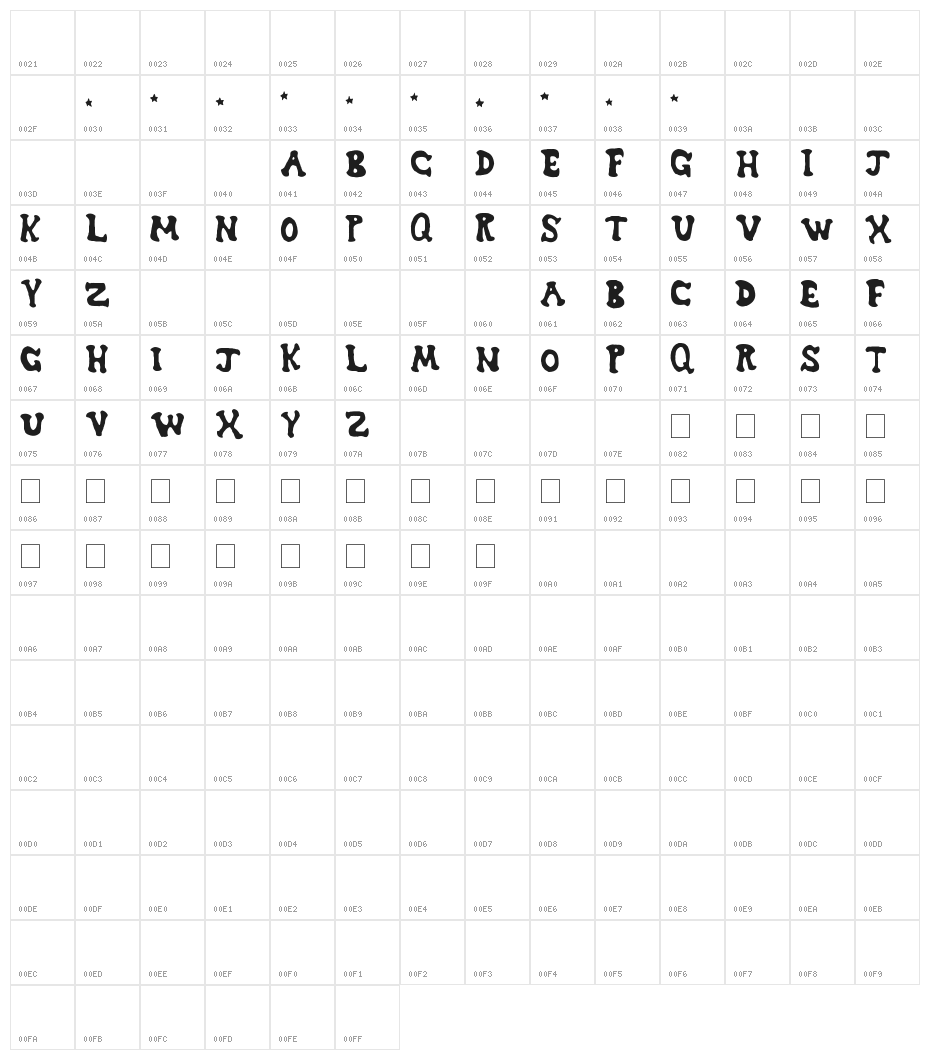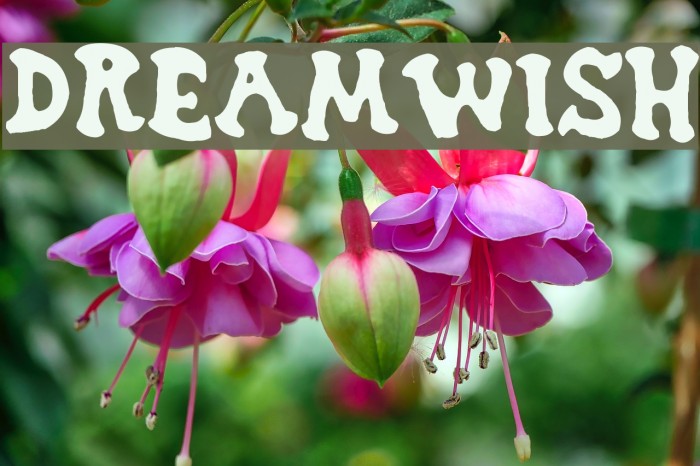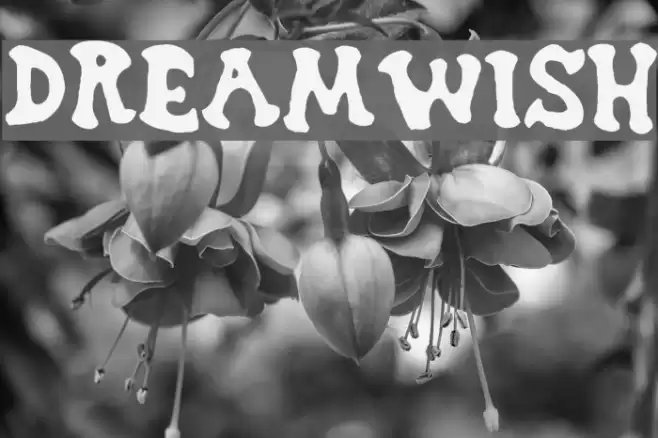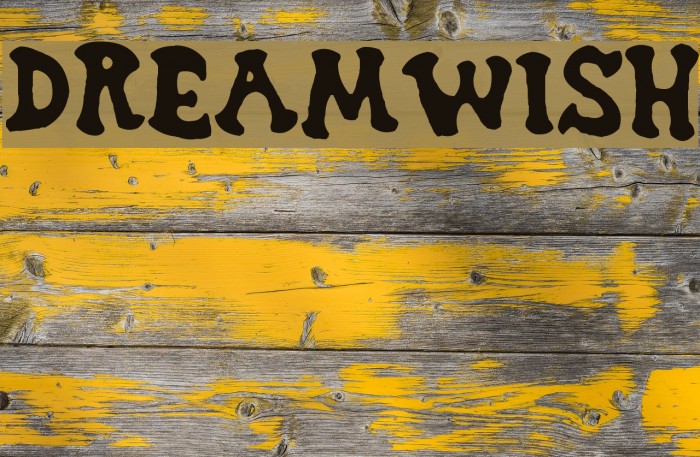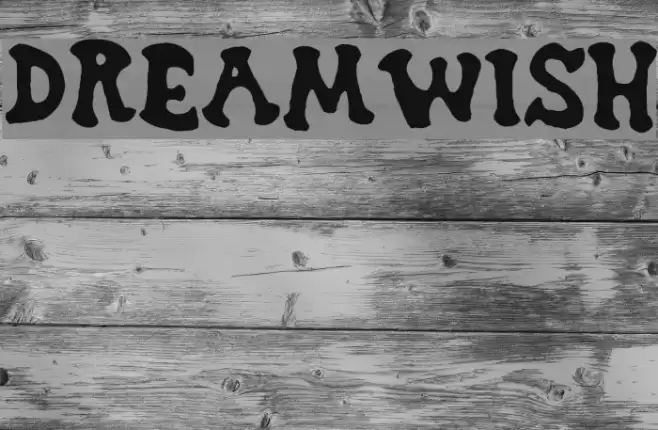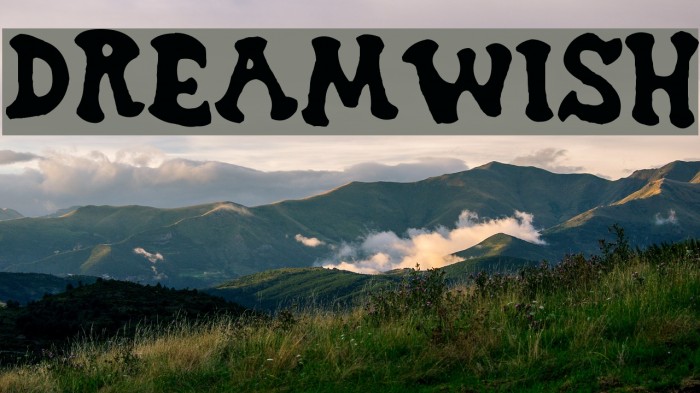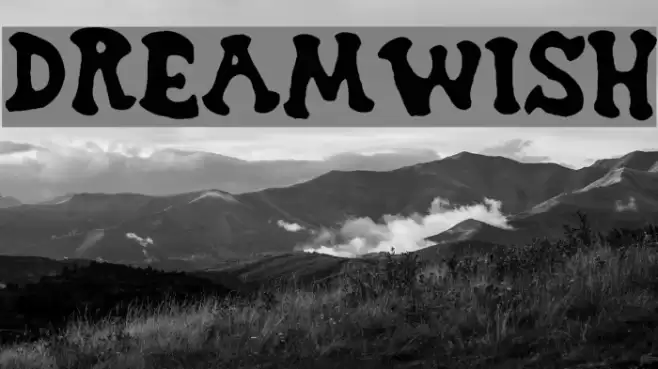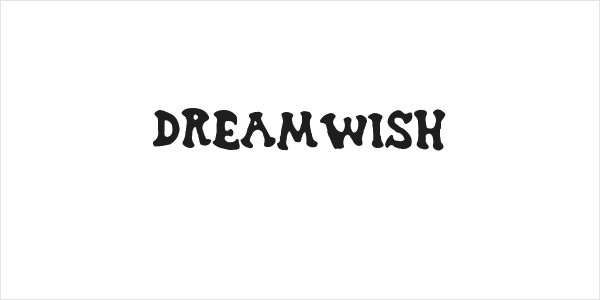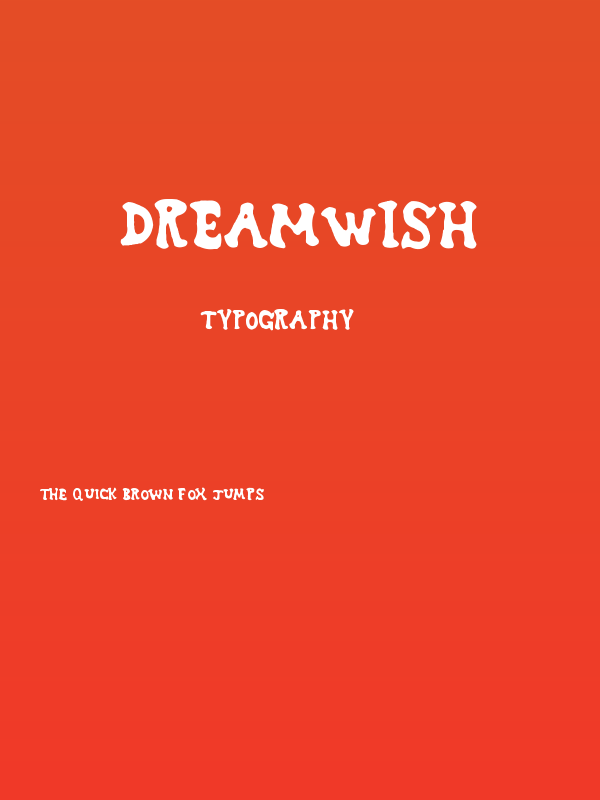
Dreamwish Font
Dreamwish Description
This font features a whimsical and playful design, characterized by its bold, rounded letterforms with irregular edges that give it a hand-drawn appearance. The uppercase letters are consistent in height, while the overall style maintains a casual and fun aesthetic. The font's unique charm is enhanced by its decorative elements, making it stand out in creative projects. Its boldness and distinctiveness make it suitable for eye-catching designs, while the playful curves add a touch of creativity and imagination.